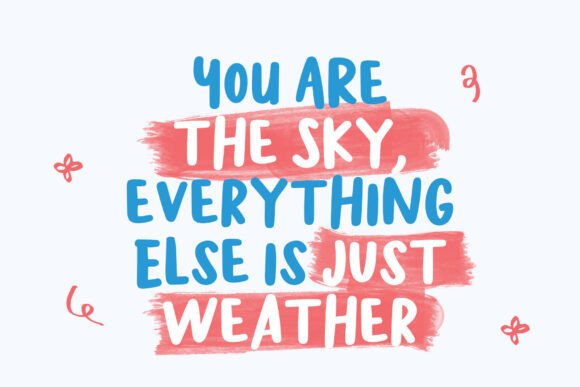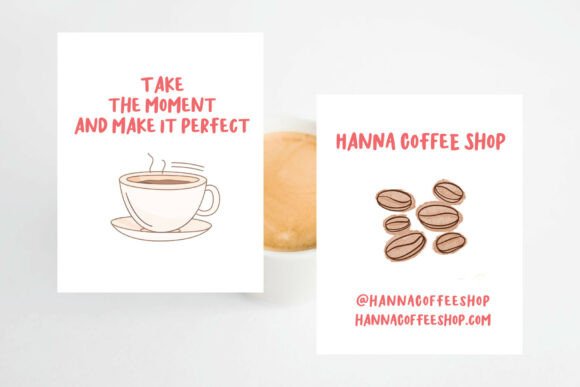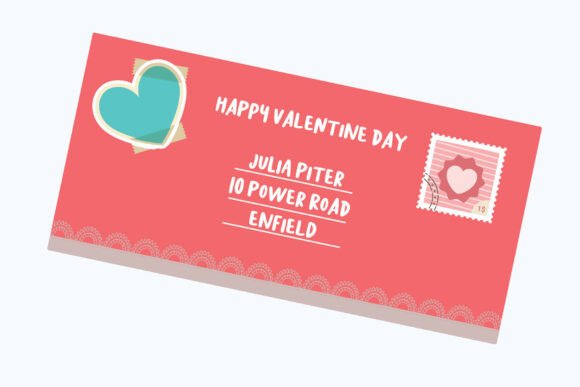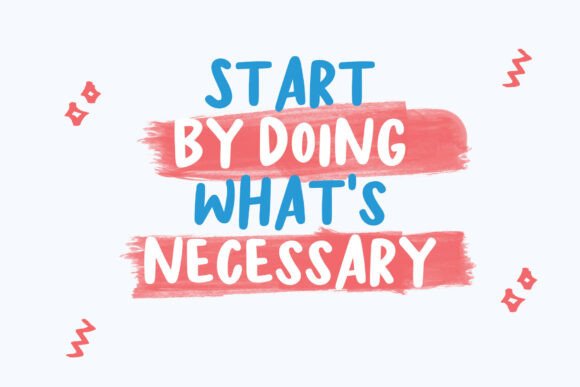
Berry Cute Font: The Perfect Handwritten Font for Your Designs
Are you tired of using the same old fonts in your designs? Look no further! Jimtype Studio is excited to introduce “Berry Cute,” a charming handwritten font that’s perfect for adding a natural touch to your artwork. In this article, we’ll dive into the features and benefits of Berry Cute, and explore how you can use it to elevate your designs.
What is Berry Cute Font?
Berry Cute is a handwritten font that’s designed to add a touch of whimsy and charm to your designs. With its messy, yet sophisticated feel, this font is perfect for designers and crafters who want to create artwork that stands out from the crowd. Whether you’re working on branding, packaging, quotes, invitations, logos, websites, social media, headers, posters, or any other type of design, Berry Cute is the perfect choice.
Features of Berry Cute Font
So, what makes Berry Cute so special? Here are just a few of the features that set it apart:
- Handwritten style: Berry Cute is a handwritten font that’s designed to look like it was written with a pen or pencil. This gives it a natural, organic feel that’s perfect for adding a personal touch to your designs.
- Messy yet sophisticated: Berry Cute has a delightfully messy feel that’s perfect for creating artwork that feels playful and fun. At the same time, it’s still sophisticated enough to use in more formal designs.
Benefits of Using Berry Cute Font
So, why should you choose Berry Cute for your designs? Here are just a few of the benefits of using this font:
- Adds a personal touch: Berry Cute’s handwritten style adds a personal touch to your designs that’s hard to replicate with other fonts.
- Perfect for branding and packaging: Berry Cute is a great choice for branding and packaging design, as it adds a touch of whimsy and charm to your artwork.
- Easy to read: Despite its messy feel, Berry Cute is easy to read, making it perfect for use in body text and other applications where readability is key.
How to Use Berry Cute Font
So, how can you use Berry Cute in your designs? Here are a few ideas to get you started:
- Branding and packaging: Use Berry Cute to add a touch of whimsy and charm to your branding and packaging design.
- Quotes and posters: Berry Cute is a great choice for quotes and posters, as its handwritten style adds a personal touch to your artwork.
- Invitations and greeting cards: Berry Cute is perfect for use in invitations and greeting cards, as it adds a touch of warmth and personality to your designs.
- Websites and social media: Use Berry Cute to add a touch of whimsy and charm to your website or social media graphics.
In conclusion, Berry Cute is a charming handwritten font that’s perfect for designers and crafters who want to add a natural touch to their artwork. With its messy yet sophisticated feel, multi-format support, and ease of use, Berry Cute is a great choice for a wide range of design applications. So why wait? Download Berry Cute today and start creating artwork that’s truly one-of-a-kind!